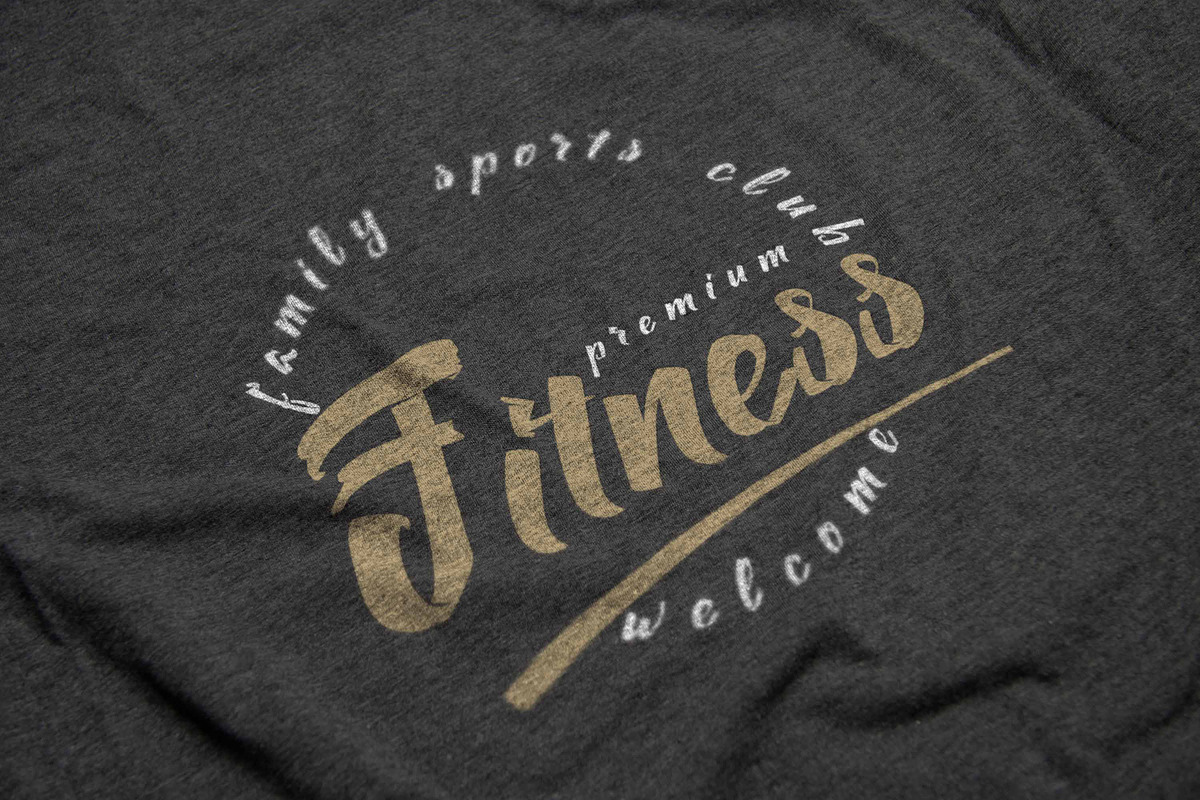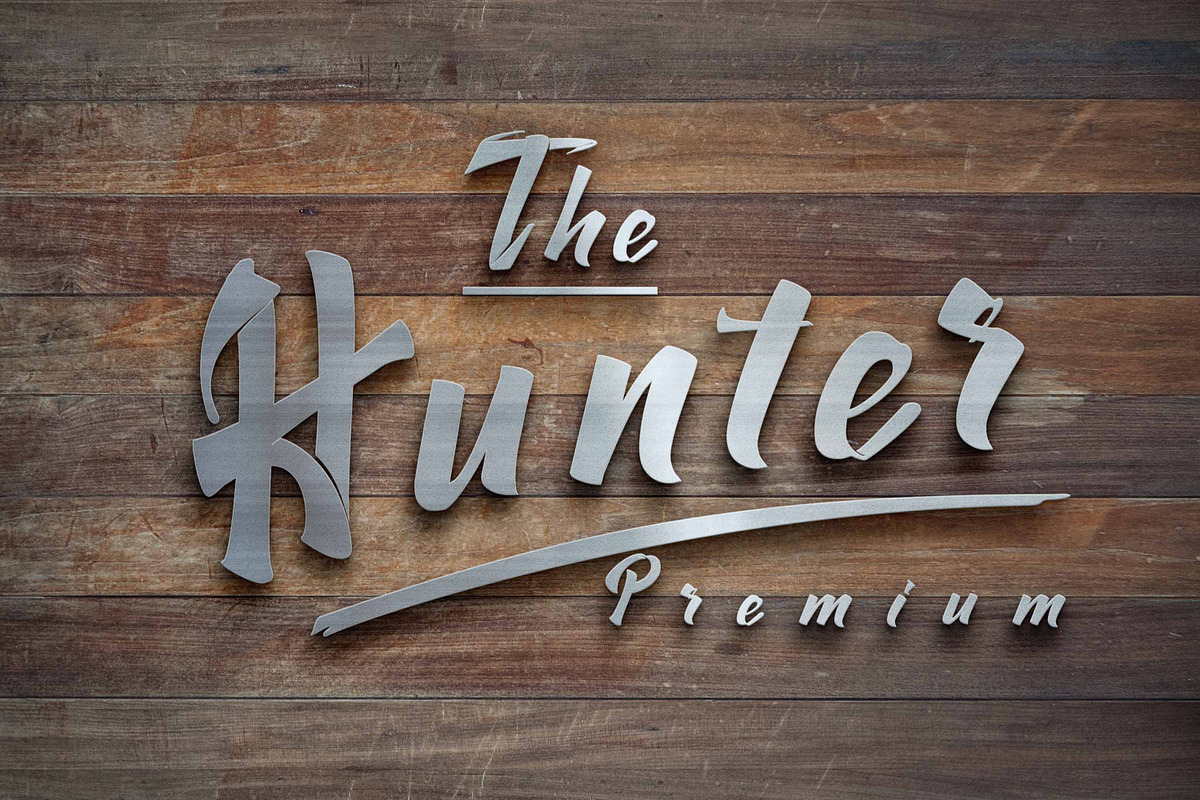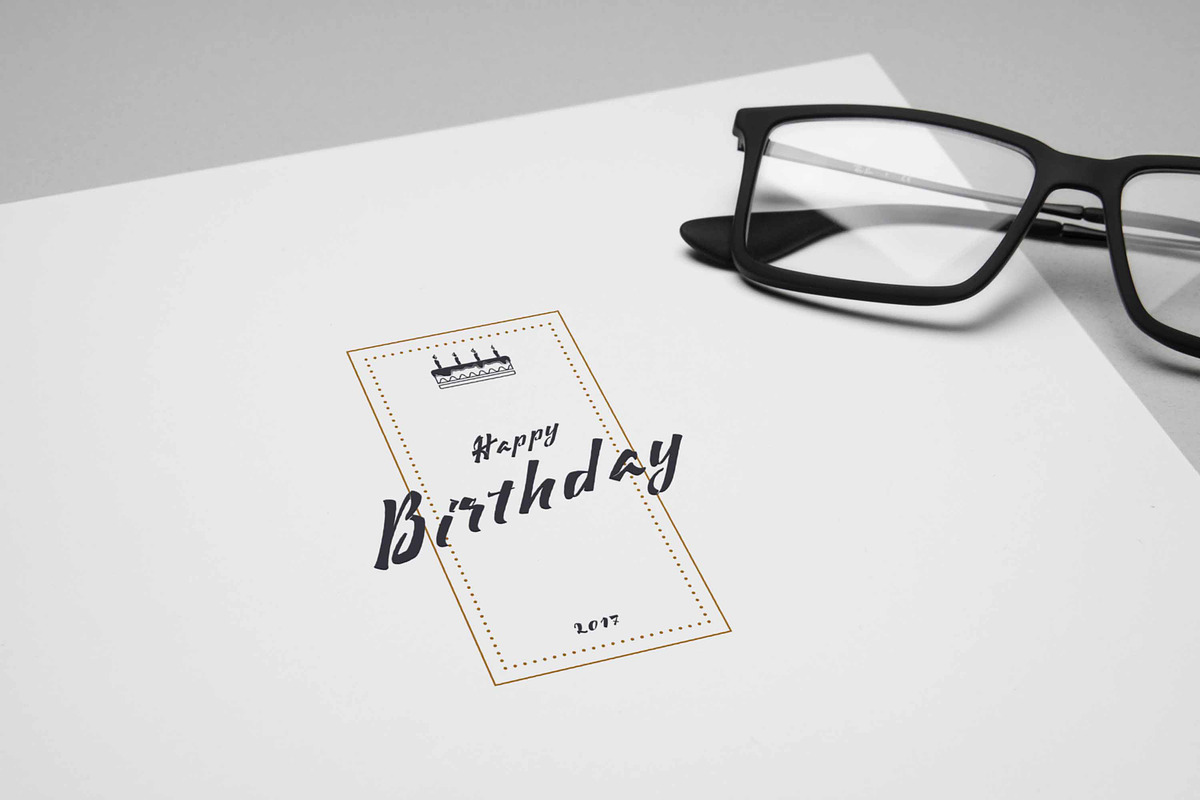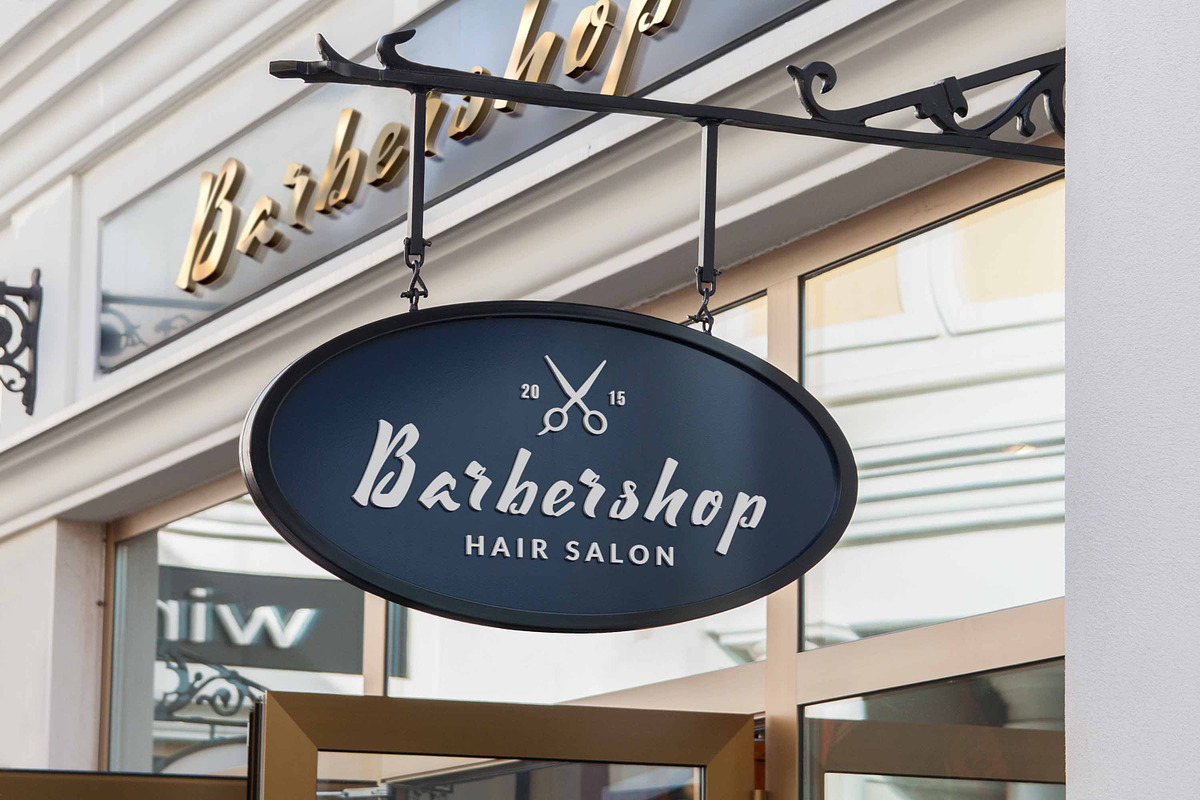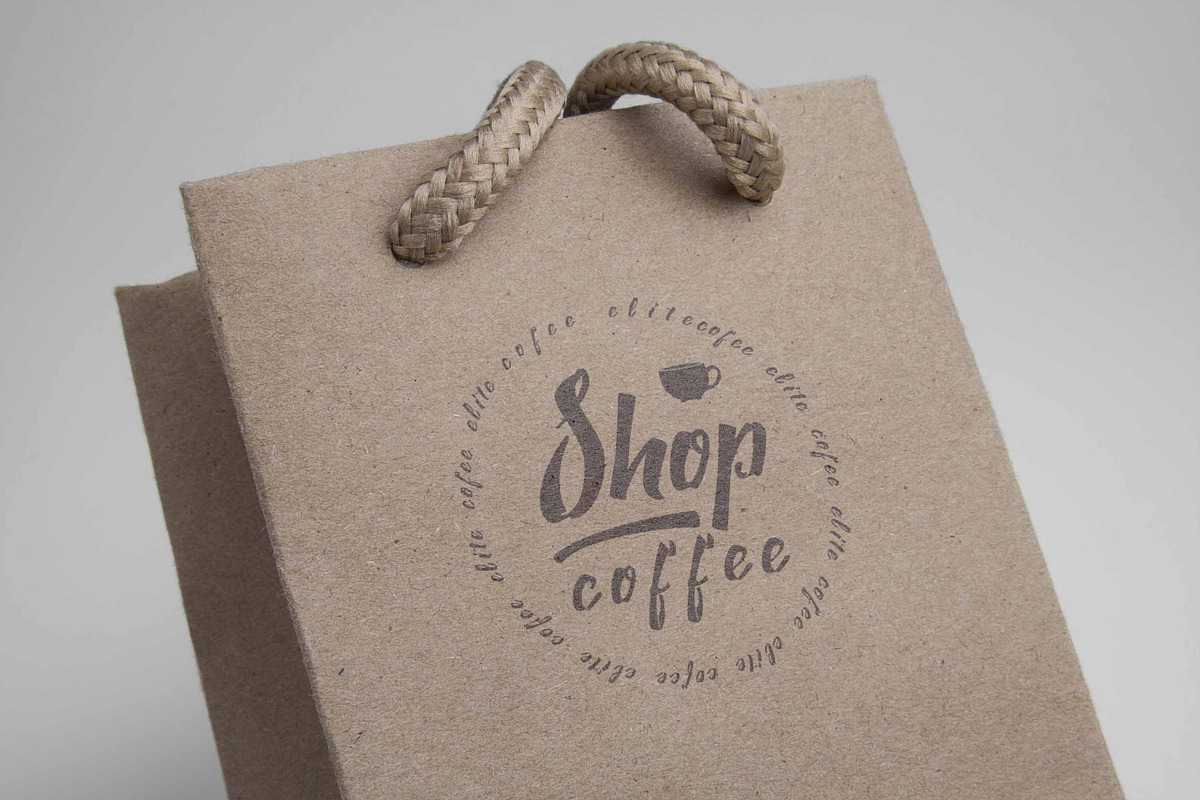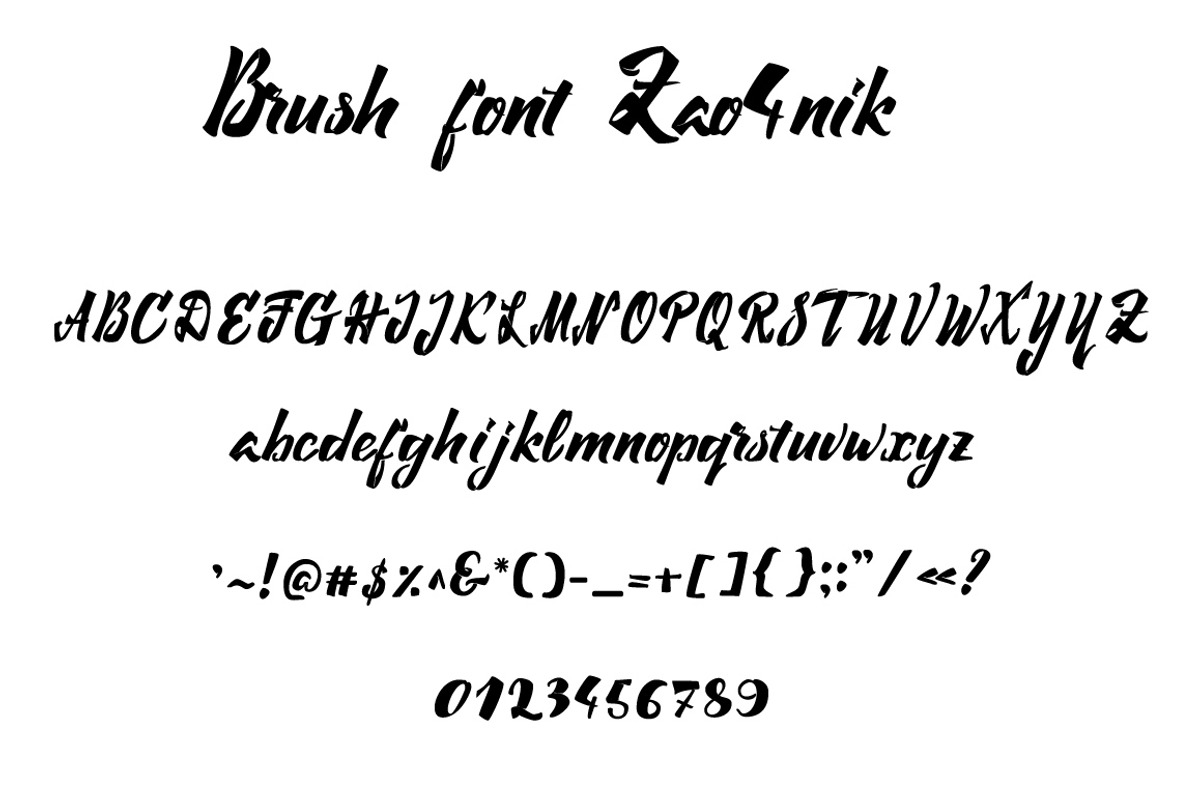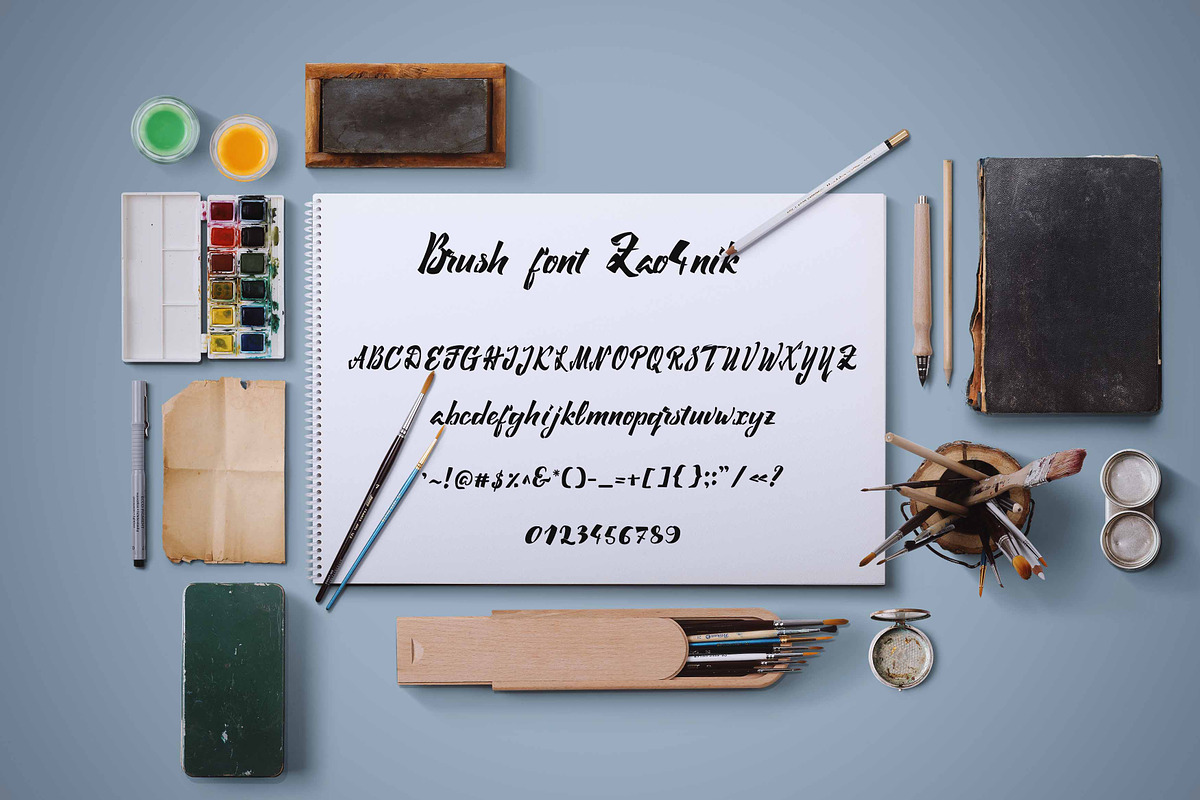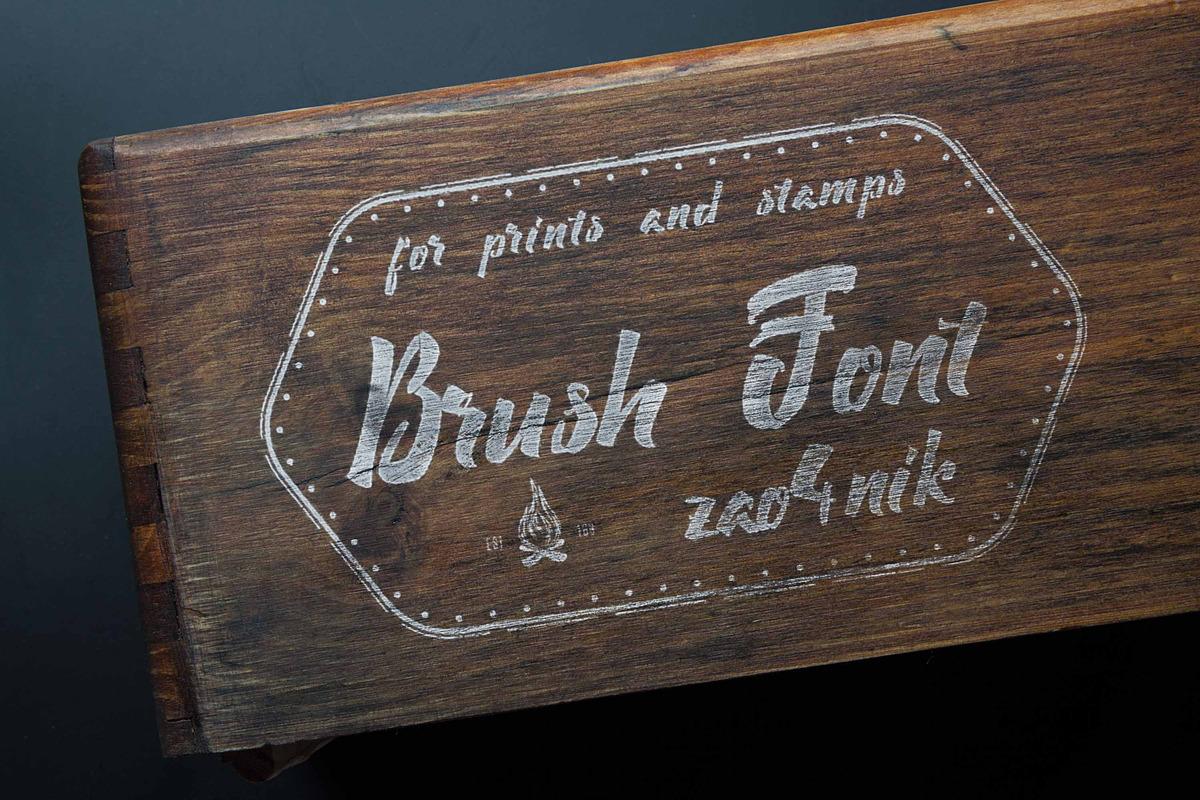
Brush Font for print Zao4nik
Brush Font for print Zao4nik by zao4nik is a font selected for branding, posters, packaging, typography.
Why Brush Font for print Zao4nik is worth a look
Brush Font for print Zao4nik by zao4nik fits naturally into Branding, posters, packaging, typography.